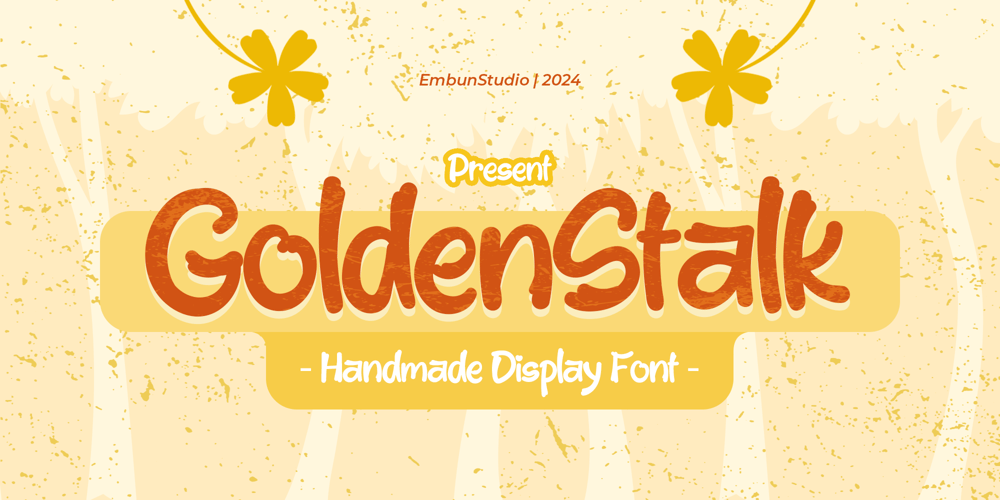
Golden Stalk Font Family was designed by Aditya Rezki Apriyadi and published by EmbunStudio2018. Golden Stalk contains 1 styles and family package options. Embunstudio present new Fun Handwritten Display font called – Golden Stalk, with unique stem in every letterGiving a cuteness and friendly look to provide you while working on a project that need it, such as pre-school banner or the other element, kids book cover, playground ticket and still worked in every project that need cuteness and friendly look !